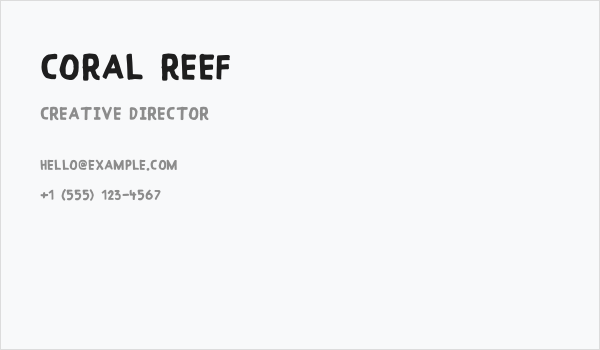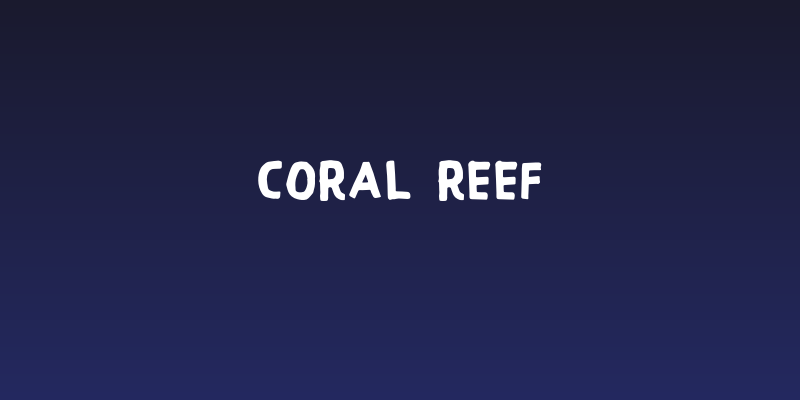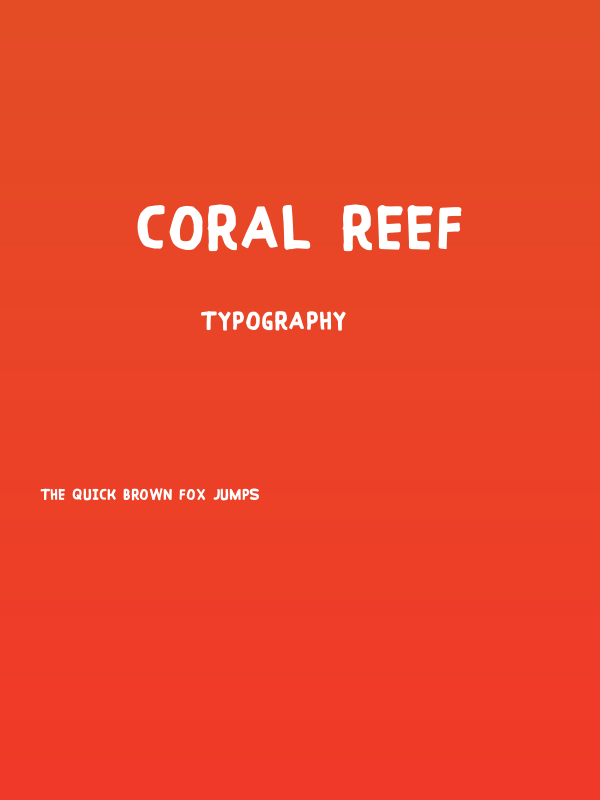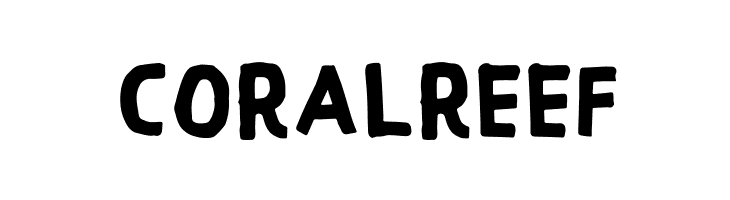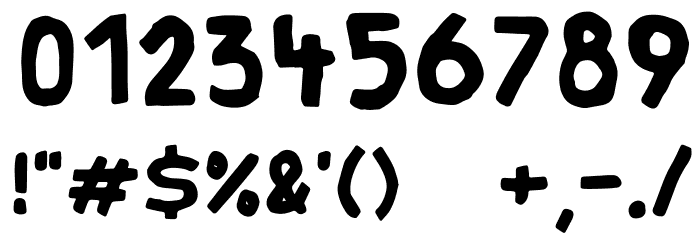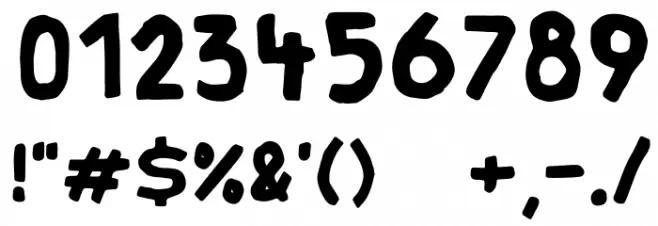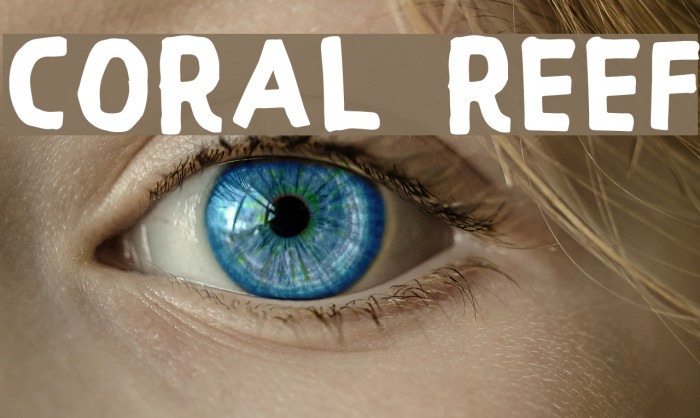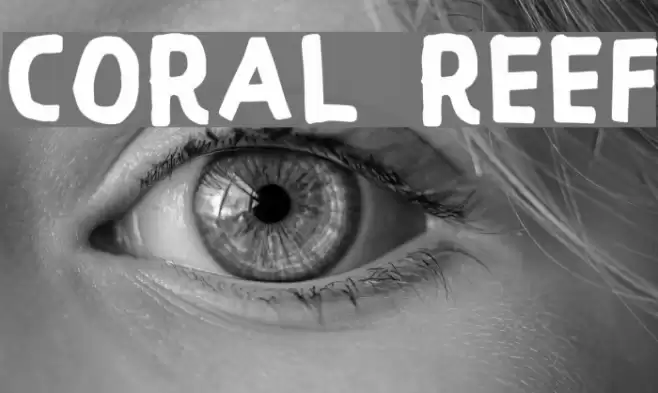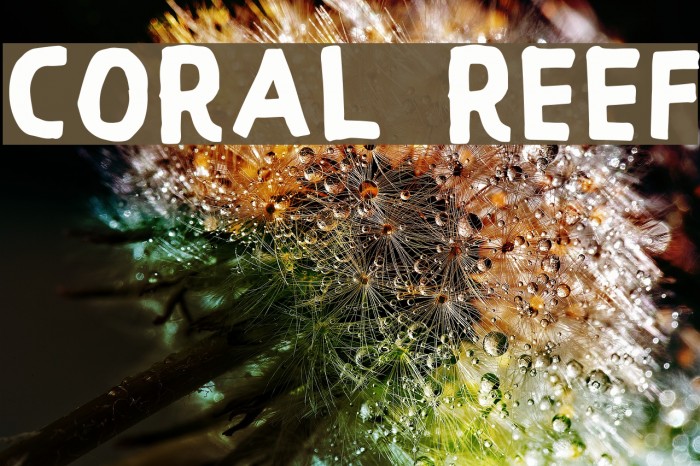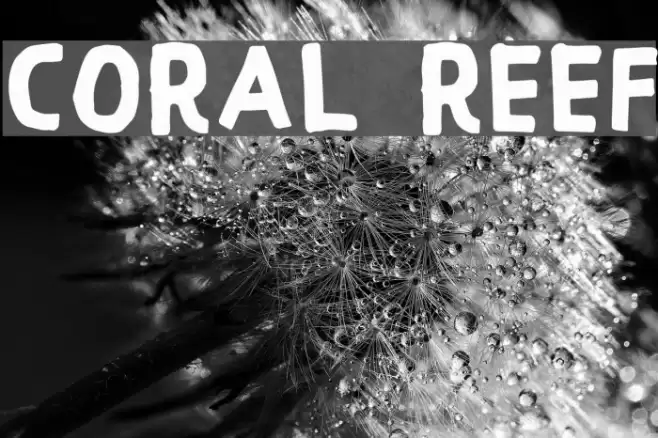
Coral Reef Font
Coral Reef Description
This font features a playful and bold style with a hand-drawn appearance. The characters are slightly irregular, giving it a casual and friendly feel. The strokes are thick and rounded, contributing to its approachable and informal look. It is highly legible, making it suitable for various creative projects. The font includes both uppercase and lowercase letters, numerals, and a range of special characters, ensuring versatility in design applications.
| Overall Style | Casual |
| Proposed Projects | Ideal for children's books, playful branding, posters, and social media graphics. |